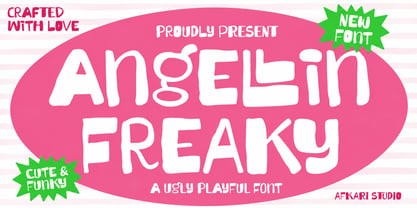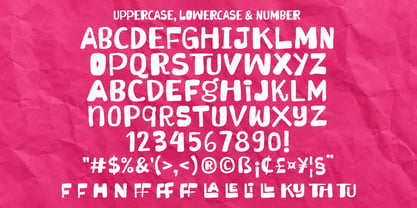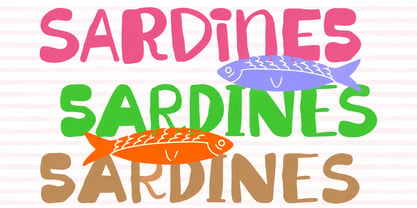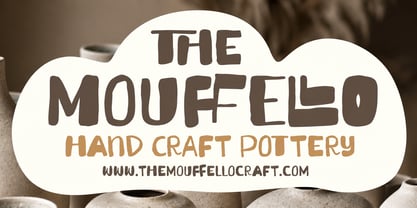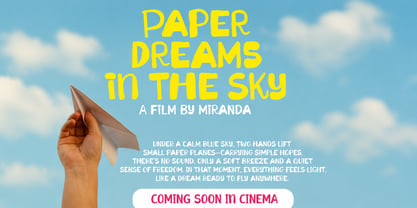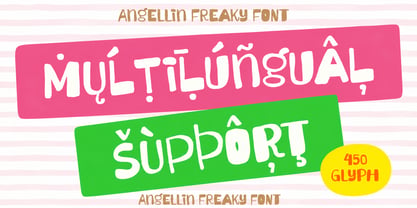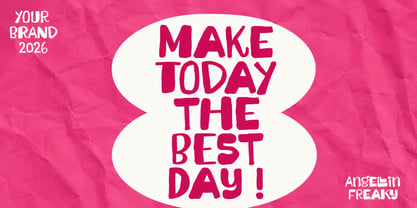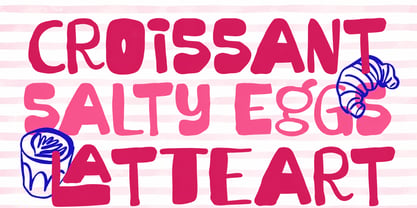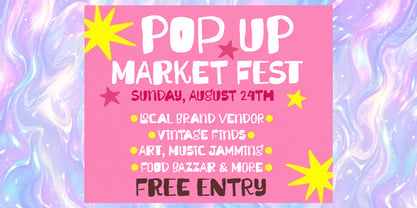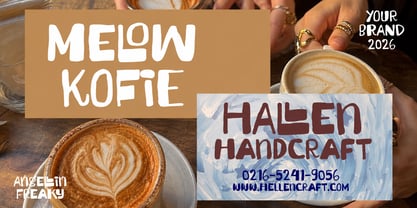
Angellin Freaky
by Afkari Studio
The Angellin Freaky Font Family was designed by Musthafa Kamal Emje and published by Afkari Studio. Angellin Freaky contains 1 styles. More about this family
Angellin Freaky is a weird, ugly, and playful display font made to break the rules and bring chaotic fun into your designs. With its quirky shapes, uneven letterforms, and intentionally awkward style, this font delivers a unique personality that instantly grabs attention.
Designed for creators who love bold experimentation, Angellin Freaky combines humor, randomness, and expressive energy into a typeface that feels fresh and unconventional. Its imperfect appearance creates a fun visual experience perfect for playful and standout typography.
Whether you're creating funky posters, meme content, children’s designs, album artwork, or eye-catching social media graphics, Angellin Freaky adds a loud and unforgettable character to every project.
Highlighted Features:
- Uppercase, Lowercase, Number, and Punctuation
- Unique ugly-playful style with quirky letterforms
- Mültîlíñgúãl Sùppört for; ä ö ü Ä Ö Ü ß ¿ ¡